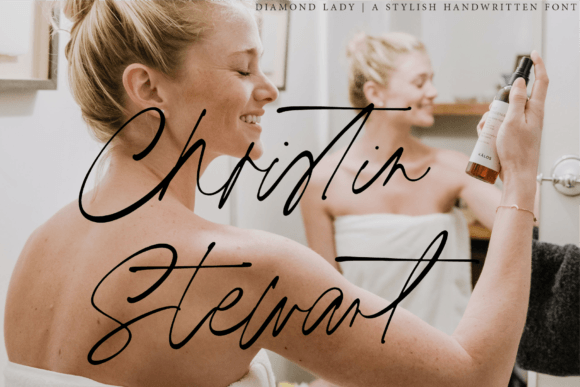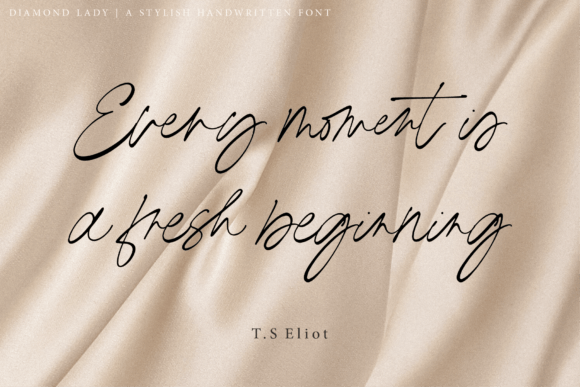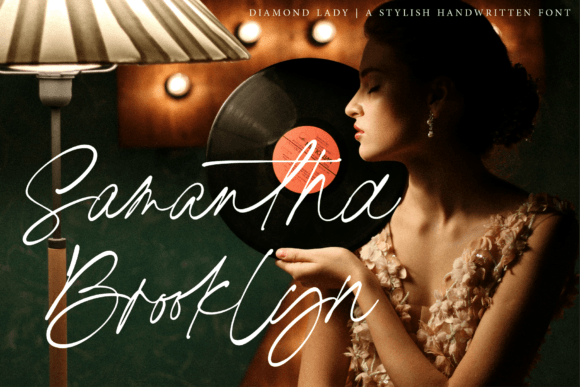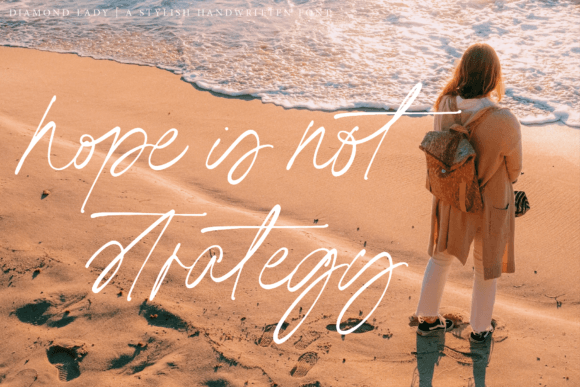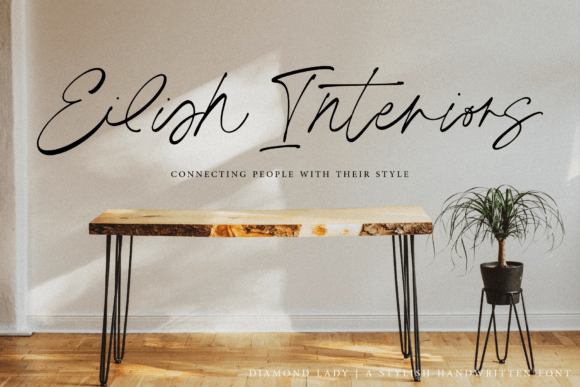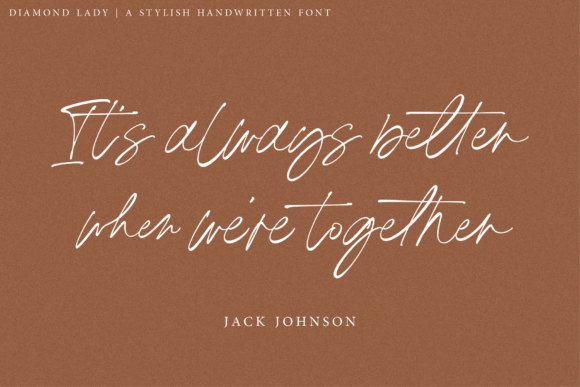
Diamond Lady Font: Add a Touch of Romance to Your Designs
Are you looking for a font that can add a romantic feel to your next project? Look no further than the Diamond Lady Font. This enchanting handwritten font is perfect for designers and crafters who want to create beautiful and unique designs that capture the heart. In this article, we’ll explore the features and benefits of the Diamond Lady Font and show you how to use it to take your designs to the next level.
What is Diamond Lady Font?
Diamond Lady Font is a versatile script font that has a wide spectrum of applications. From greeting cards to headlines, this font is guaranteed to add a touch of elegance and romance to your designs. Its handwritten style gives it a personal and intimate feel, making it perfect for projects that require a human touch.
Features of Diamond Lady Font
- Handwritten style: The Diamond Lady Font has a beautiful handwritten style that gives it a personal and intimate feel.
- Versatile: This font is perfect for a wide range of applications, from greeting cards to headlines, and can be used for both personal and commercial projects.
- Easy to read: Despite its elegant and cursive style, the Diamond Lady Font is easy to read and understand, making it perfect for designs that require a clear message.
- Scalable: The Diamond Lady Font is highly scalable, which means it can be used for designs of all sizes, from small icons to large billboards.
Benefits of Using Diamond Lady Font
Using the Diamond Lady Font in your designs can have numerous benefits. Here are a few:
- Adds a romantic feel: The Diamond Lady Font is perfect for designs that require a romantic feel, such as wedding invitations, Valentine’s Day cards, and anniversary messages.
- Stand out from the crowd: The unique and elegant style of the Diamond Lady Font makes it perfect for designs that need to stand out from the crowd.
Design Ideas Using Diamond Lady Font
The Diamond Lady Font is perfect for a wide range of design projects. Here are a few ideas to get you started:
- Wedding invitations: Use the Diamond Lady Font to create beautiful and elegant wedding invitations that set the tone for the big day.
- Greeting cards: Use the Diamond Lady Font to create romantic greeting cards for Valentine’s Day, anniversaries, and other special occasions.
- Headlines and titles: Use the Diamond Lady Font to add a touch of elegance and sophistication to your headlines and titles.
In conclusion, the Diamond Lady Font is a beautiful and versatile script font that can add a romantic feel to your designs. Its handwritten style, ease of use, and scalability make it perfect for a wide range of applications, from greeting cards to headlines. Whether you’re a designer or crafter, the Diamond Lady Font is a great addition to your font library.